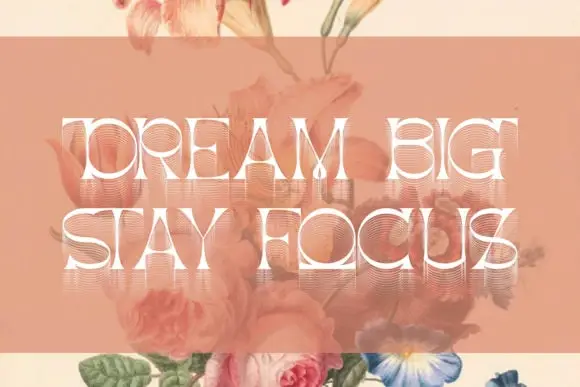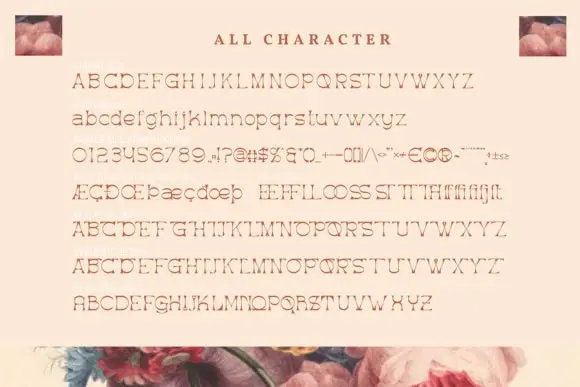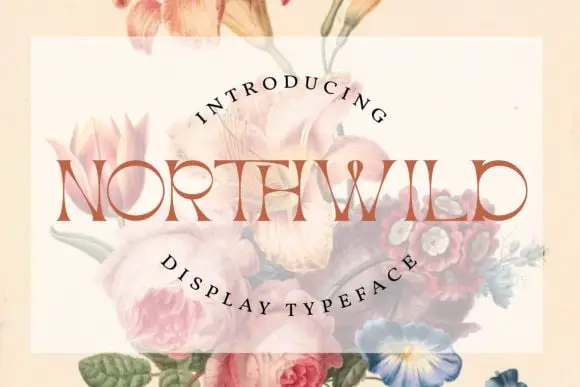
Northwild Font
The Northwild Font is a beautifully crafted typeface that embodies a rustic yet modern aesthetic, perfect for a variety of design projects. With its unique character shapes and versatile styles, this font is ideal for branding, logos, web design, and print applications.
• Stylish, modern design
• Multiple weights for added versatility
• Easy to read at various sizes
• Ideal for creating eye-catching logos and branding materials
• Great for web design projects, including headers and banners
• Utilize in print designs such as posters, flyers, and business cards